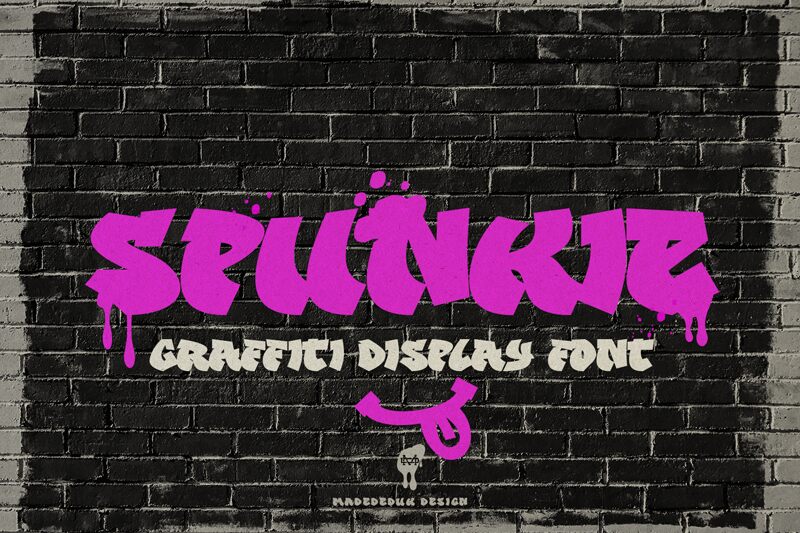
Spunkie DEMO
Spunkie font by madeDeduk is a free graffiti display font. Built with chunky, paint-loaded strokes and knife‑sharp cuts, it hits like a fresh tag—bold, bouncy, and a little unruly in the best way. The tight rhythm and heavy contrast pack strong energy into short words, giving headlines that quick, street‑level snap.
Using Spunkie, you’ll get big impact for album art, streetwear logos, event posters, skate zines, YouTube thumbnails, and sticker packs. This free font thrives large and loud; keep supporting text quiet with a clean, thin sans to let the letters swagger. Scale up tracking slightly for long titles to keep the flow breathing.